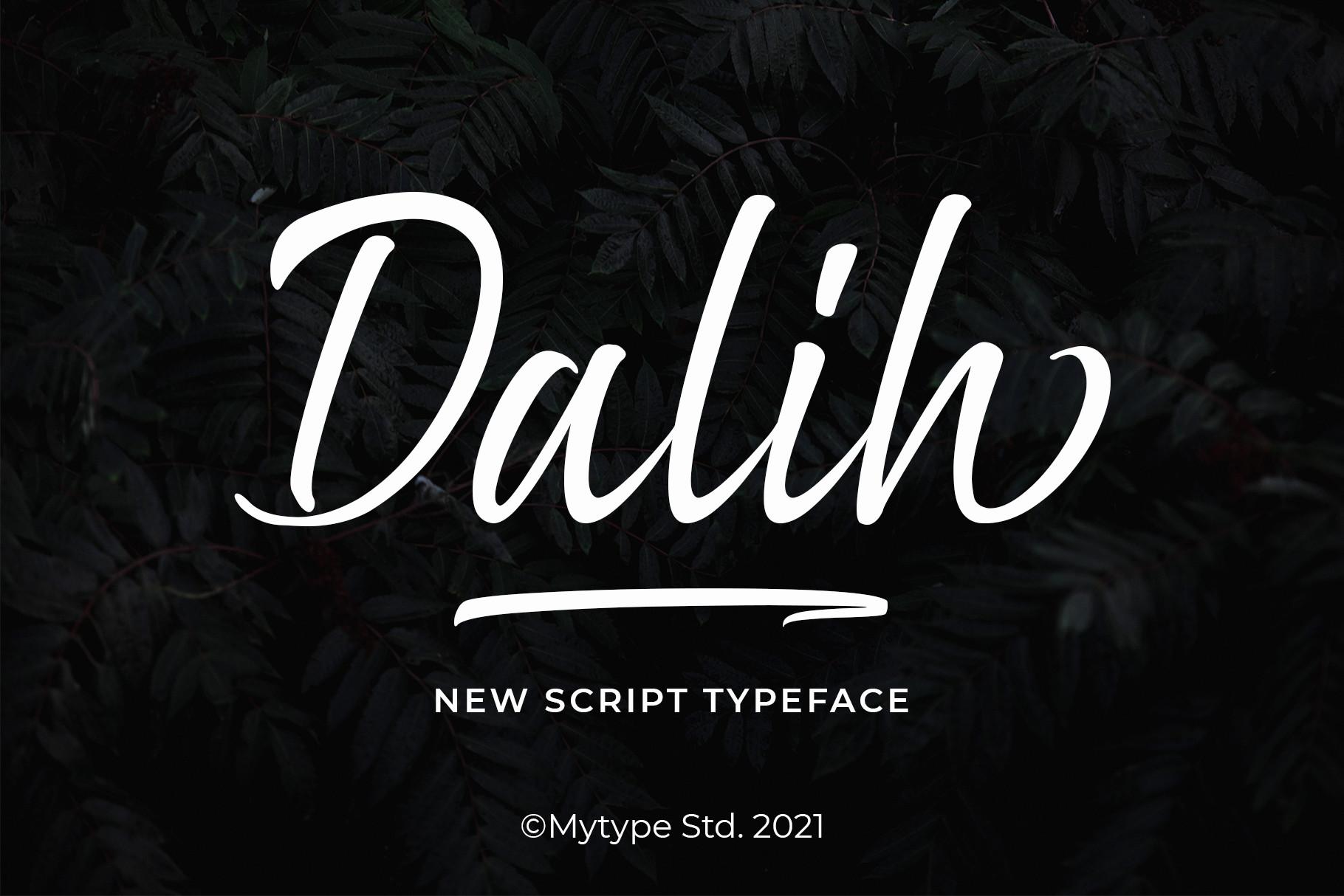
Dalih Font Description
Dalih is a sweet and delicate handwritten font. Dainty and joyful, this font will be ideal for writing wedding invitations, cards or any other design that may need a romantic, personalized touch! Dalih is PUA encoded which means you can access all of the glyphs and swashes with ease!